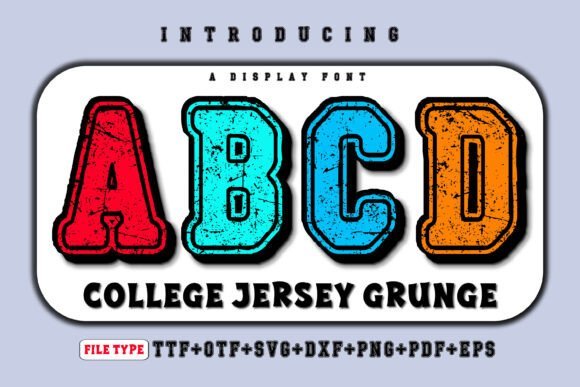
Unleashing the Power of College Spirit
Have you ever been at a live game, surrounded by cheering crowds and the electric atmosphere of competition? The rush of adrenaline as the team takes to the field, the roar of the crowd as they score a goal – it’s an experience that’s hard to replicate, but one that designers can tap into with the right tools. That’s where the College Jersey Grunge Font comes in.
This bold, athletic typeface is inspired by classic varsity lettering, but with a modern twist – a distressed, textured edge that gives it a rugged, edgy feel. Whether you’re designing sports branding, team jerseys, or college-themed apparel, this versatile font adds a dynamic punch that’s sure to grab attention. With its grunge-styled finish, it’s perfect for stickers, packaging, t-shirts, and logos, while still being adaptable enough for editorials, magazine spreads, and book covers.
College Jersey Grunge Font Features
- Font Style: A distressed, grunge-inspired font, reminiscent of worn college jerseys.
- Unique Characteristics: Distressed texture, worn-out appearance, and subtle imperfections to evoke a vintage, college sports feel.
Designer Review: College Jersey Grunge Font
Overall, I think the College Jersey Grunge Font is a cool, modern take on a distressed font. Here are some things that I think work well: ✨
- It’s perfect for casual, laid-back designs where you want to add a bit of edge.
- The font is highly customizable, allowing you to adjust the level of distressing to suit your design.
- It’s available in a range of weights and styles, making it versatile for use in a variety of contexts.
However, there are a few limitations that I think are worth noting: ⚠️
- The font may not be suitable for use in formal or professional contexts, where a more polished look is required.
- It can be a bit difficult to read at small font sizes, due to the distressed nature of the font.
Overall, I think the College Jersey Grunge Font is a great addition to any designer’s toolkit. It’s perfect for designers who want to add a bit of personality and flair to their designs, but may not be the best choice for every project. With a little creativity and experimentation, I think this font has a lot of potential.
The College Jersey Grunge Font is perfect for creating a distressed, vintage look for sports teams, schools, or music festivals.
Use it for posters, flyers, or social media graphics to add a unique touch.
Experiment with different font sizes, colors, and styles to achieve the desired level of grunge.